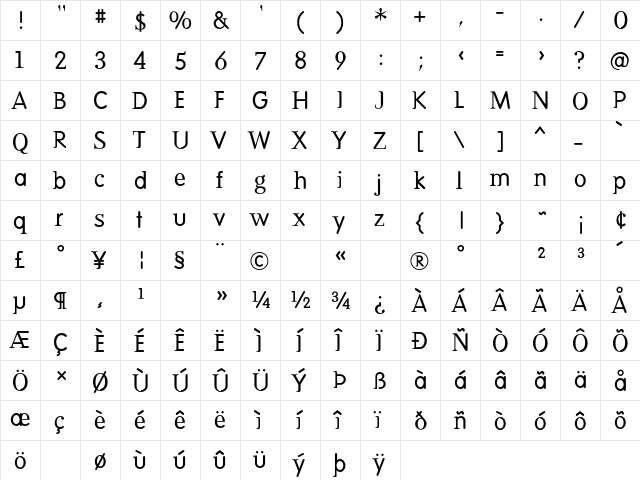
DeadHistoryRoman Regular
Design Context for DeadHistoryRoman Typeface
DeadHistoryRoman offers clean, dependable letterforms without strong stylistic allegiance, making it a practical choice for designers who need flexibility.